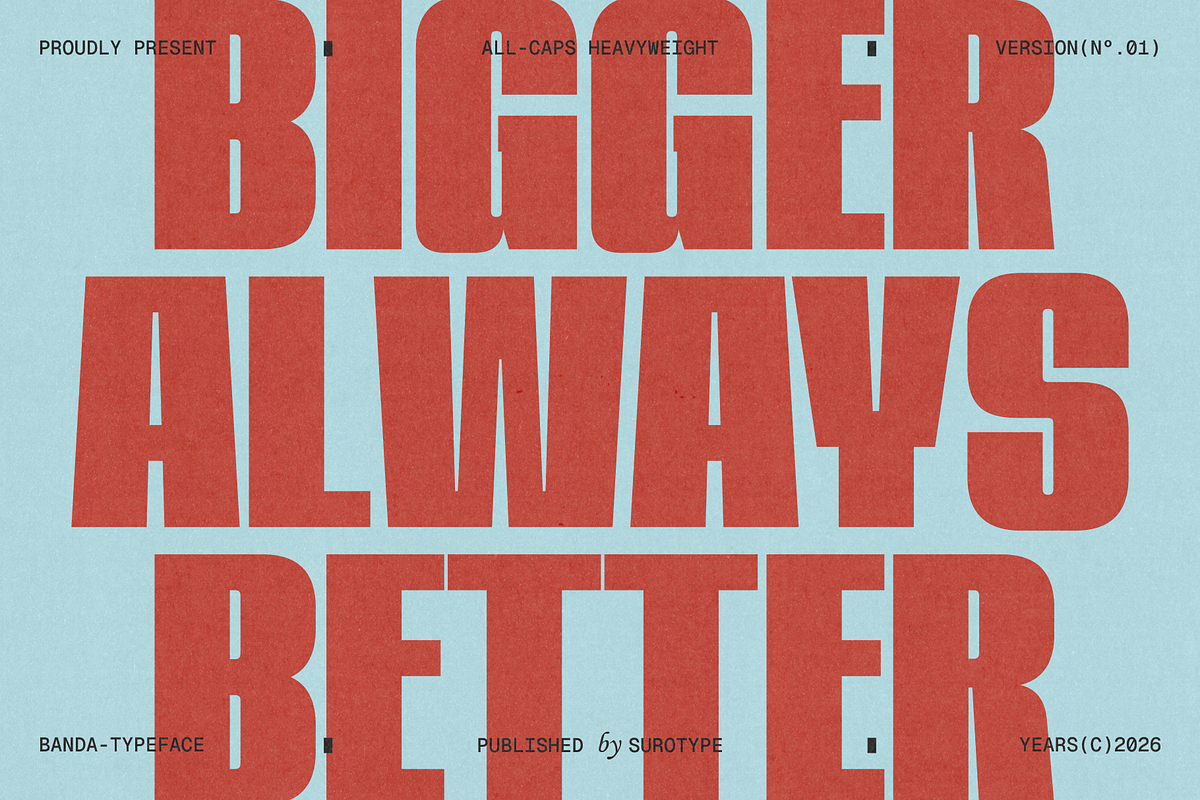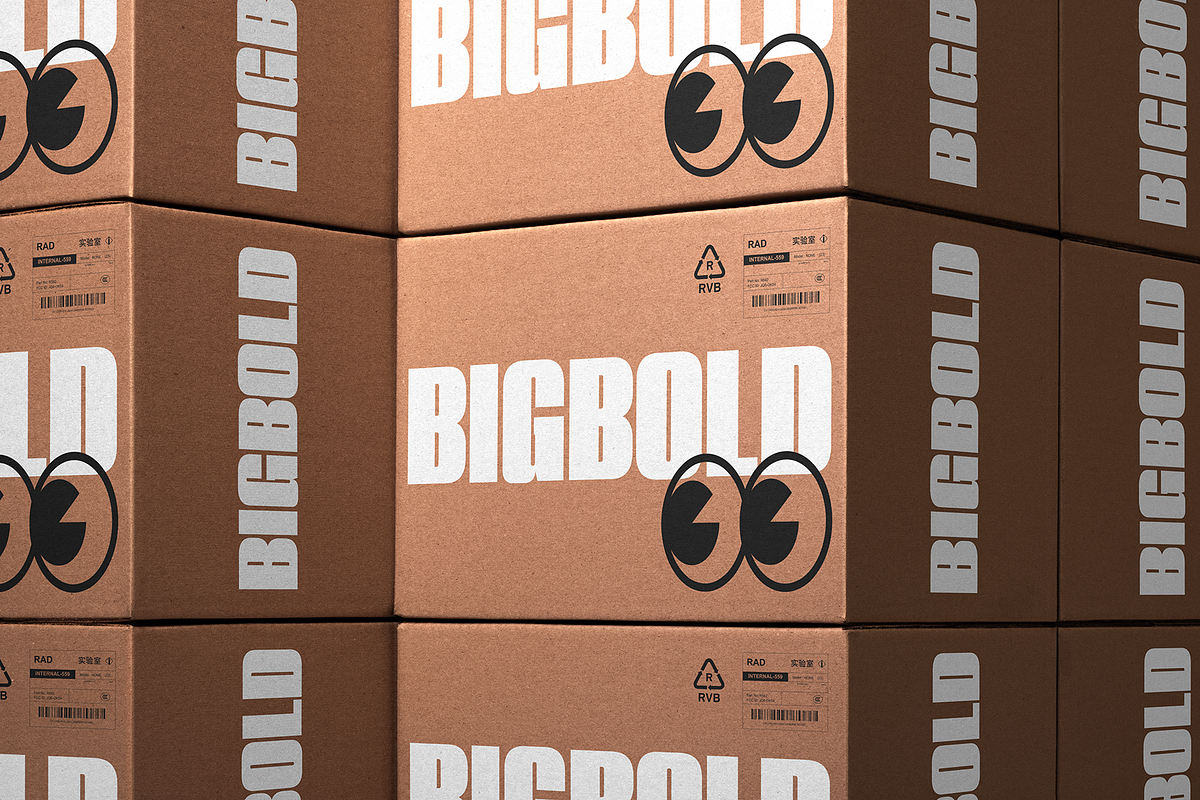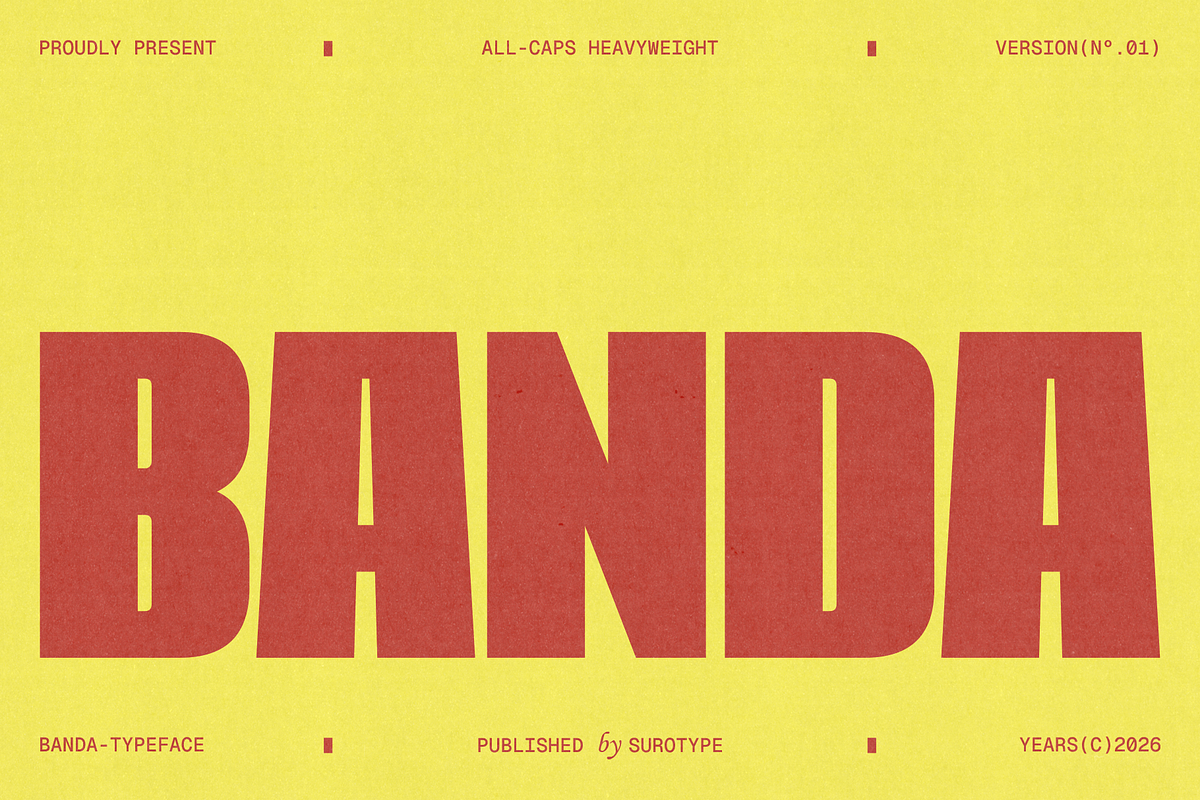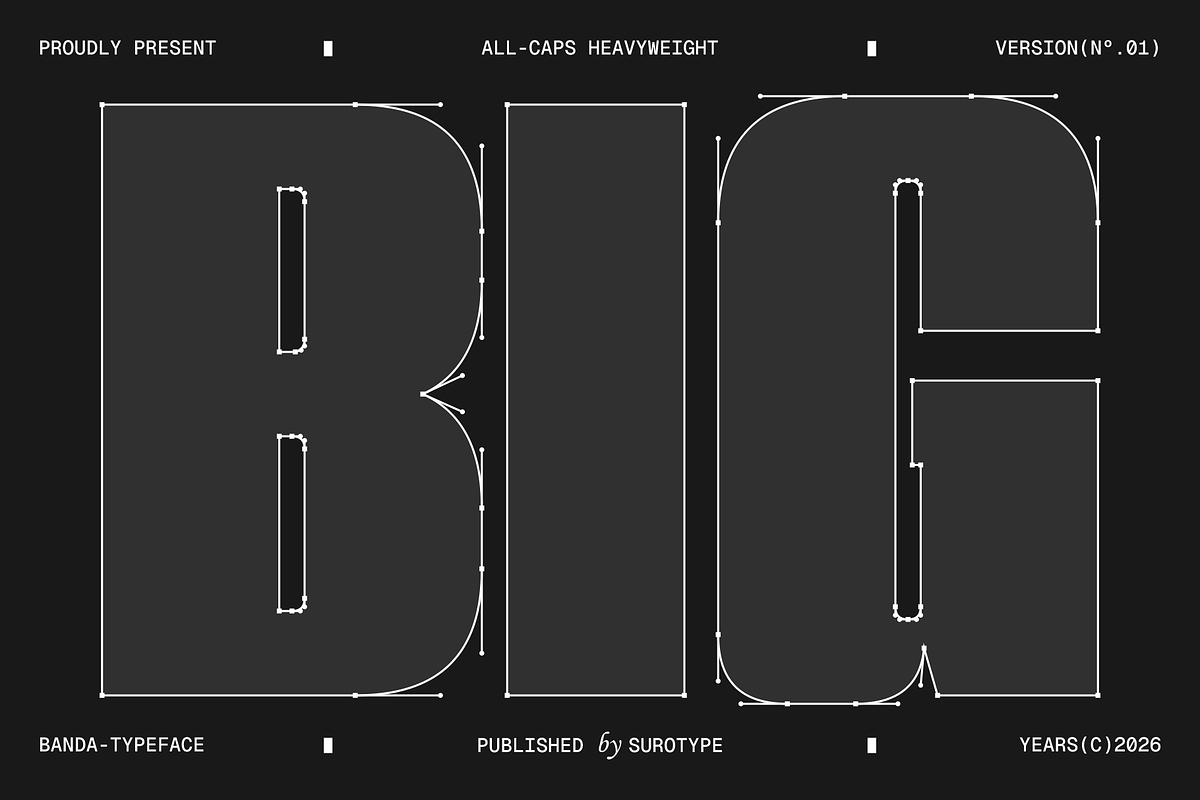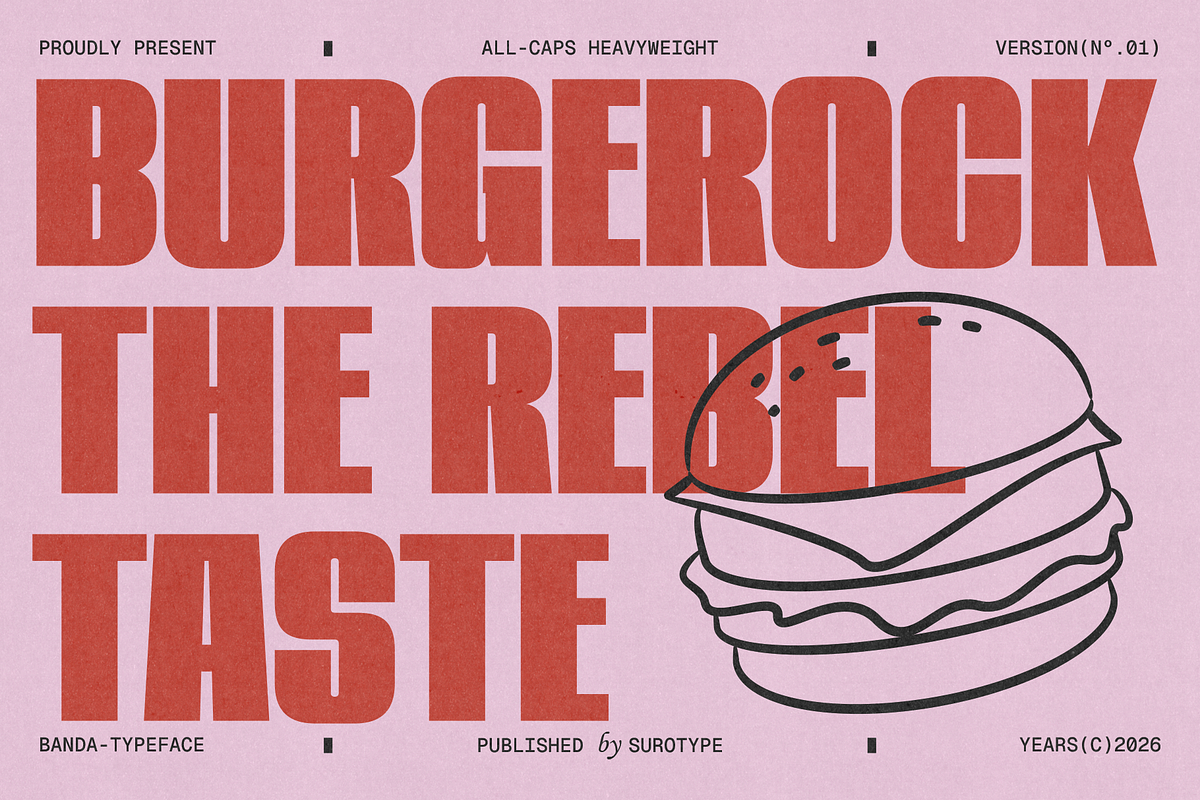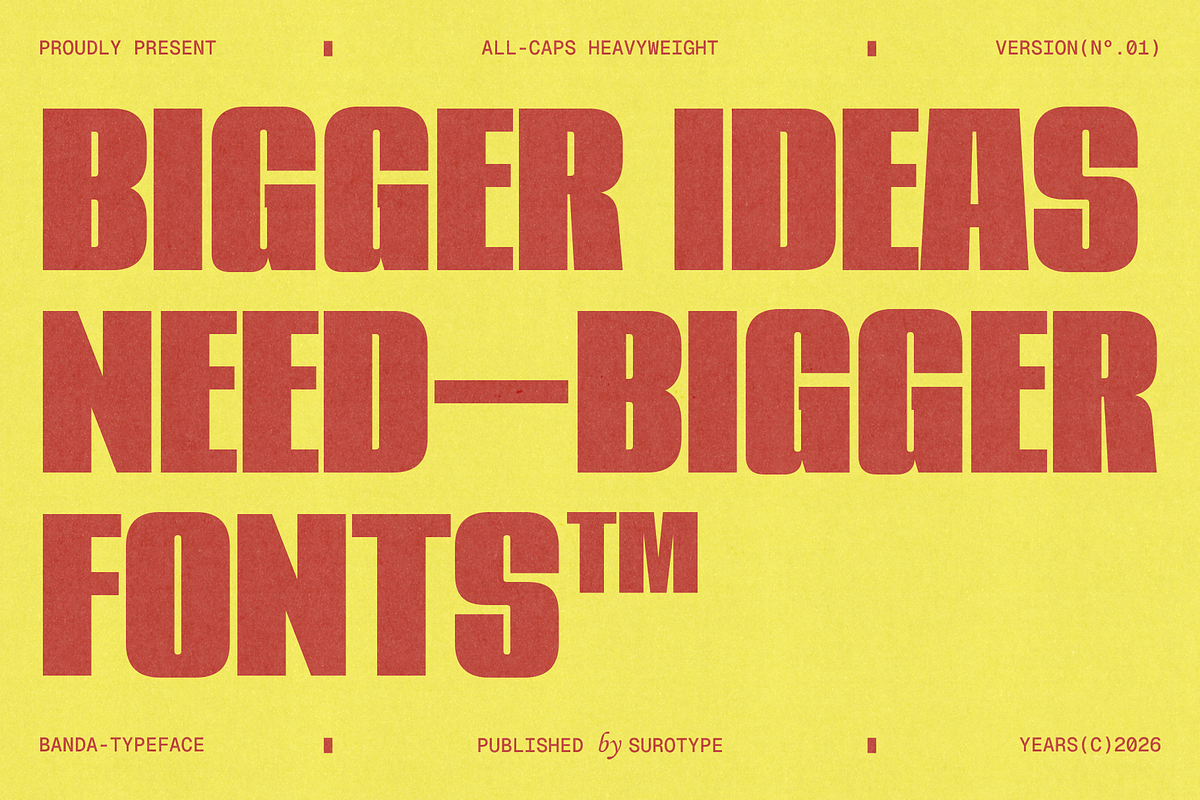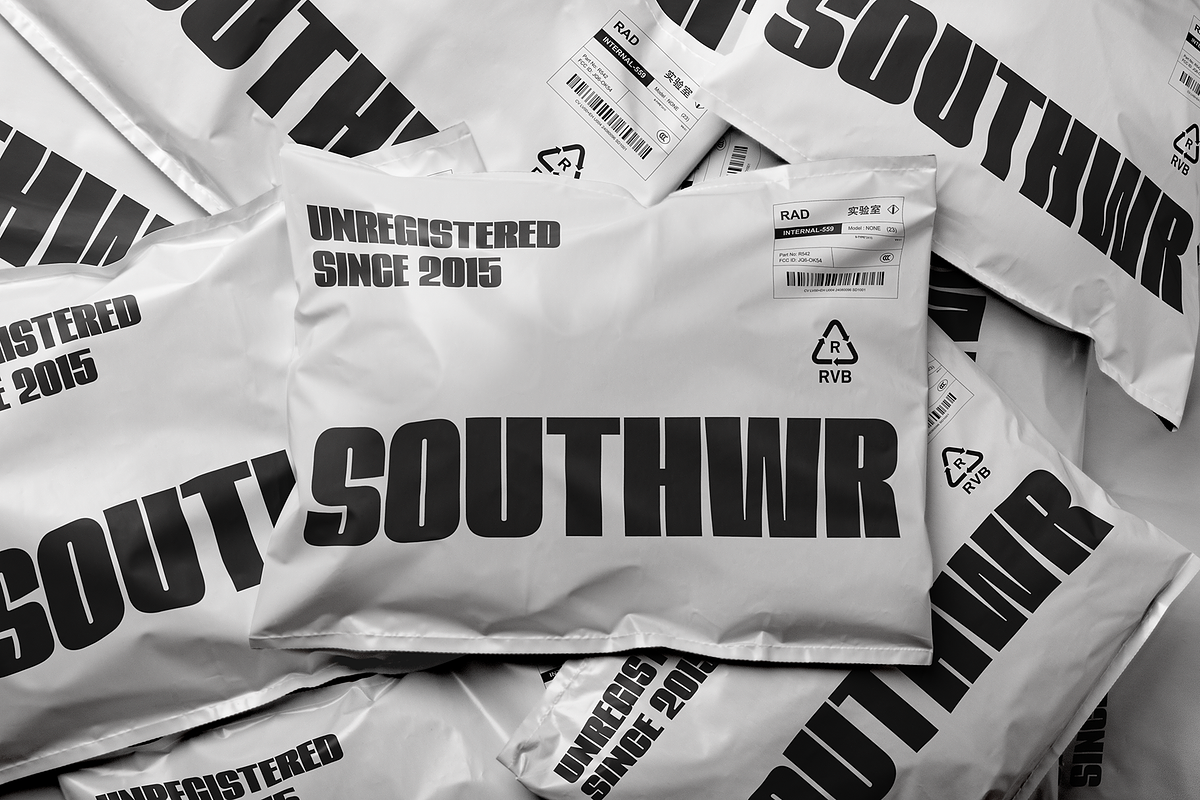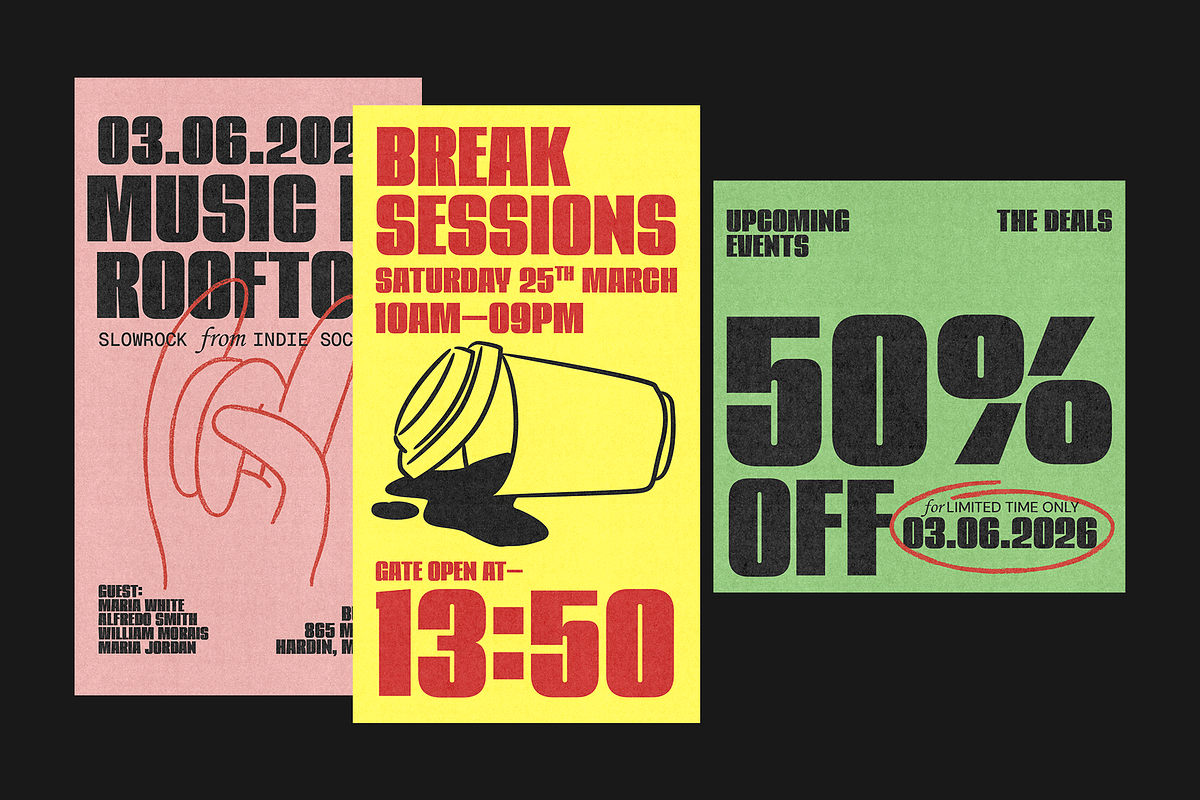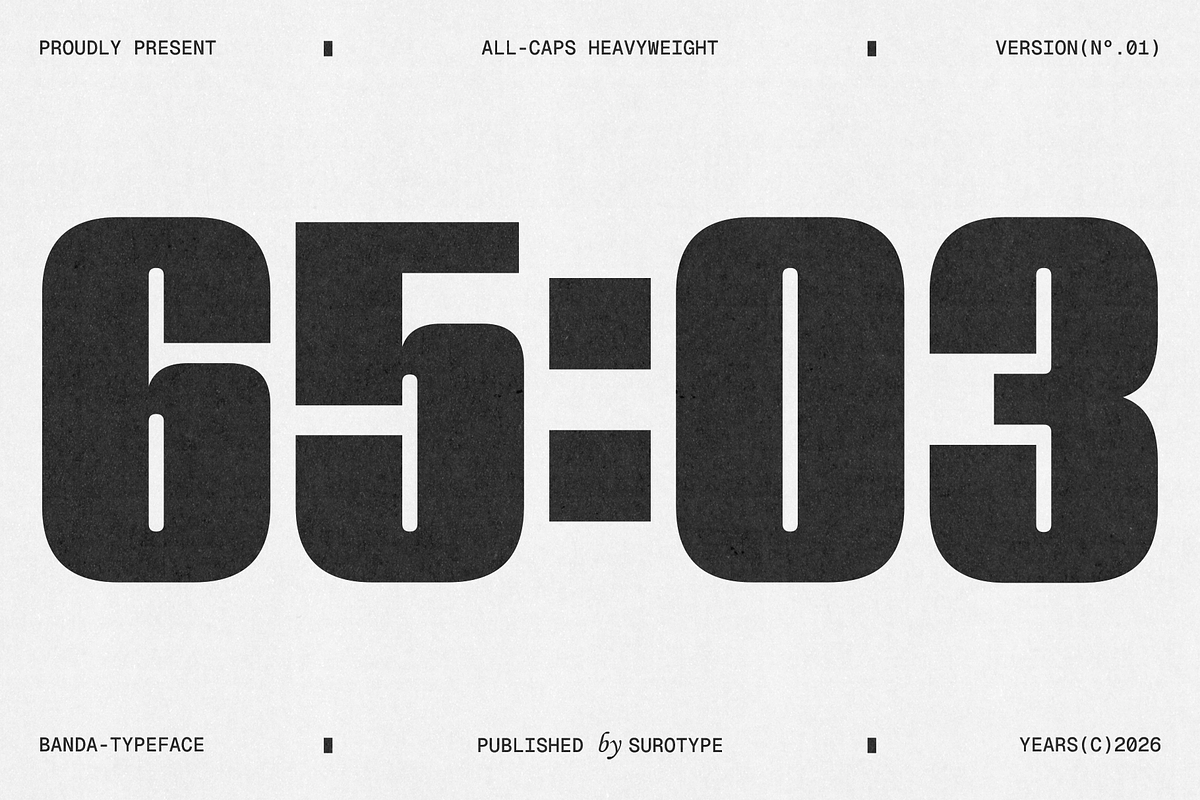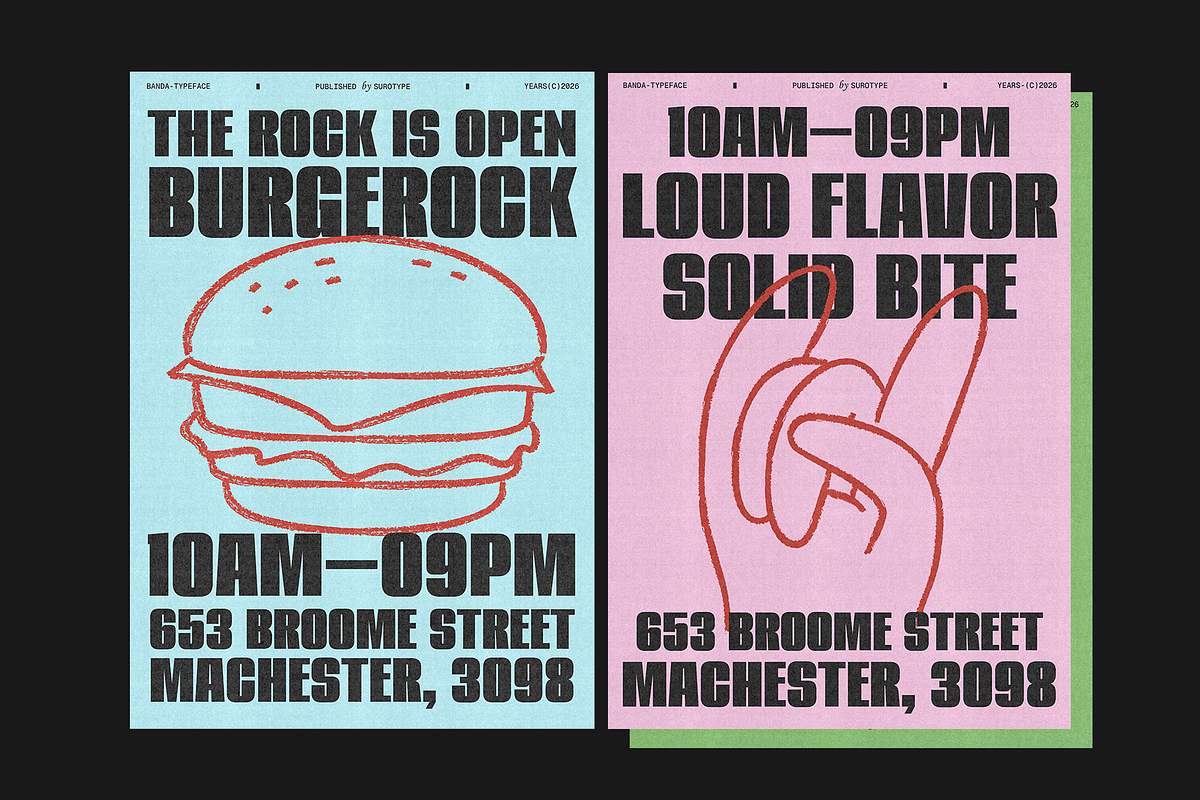
BANDA
BANDA is a powerful all-caps heavyweight typeface designed to make a strong and confident statement. Built with bold proportions and solid structure, this font delivers impact, clarity, and presence in every composition.
With its clean geometric construction and subtle industrial character, BANDA works perfectly for designs that demand attention — from branding and posters to packaging and editorial headlines.
- All-Caps Typeface
- Heavyweight / Bold Style
- Strong, Compact Letterforms
- Clean & Minimal Structure
BANDA is designed to stand out — confident, modern, and unapologetically strong. If you're looking for a typeface that speaks loud without losing clarity, BANDA is your answer.